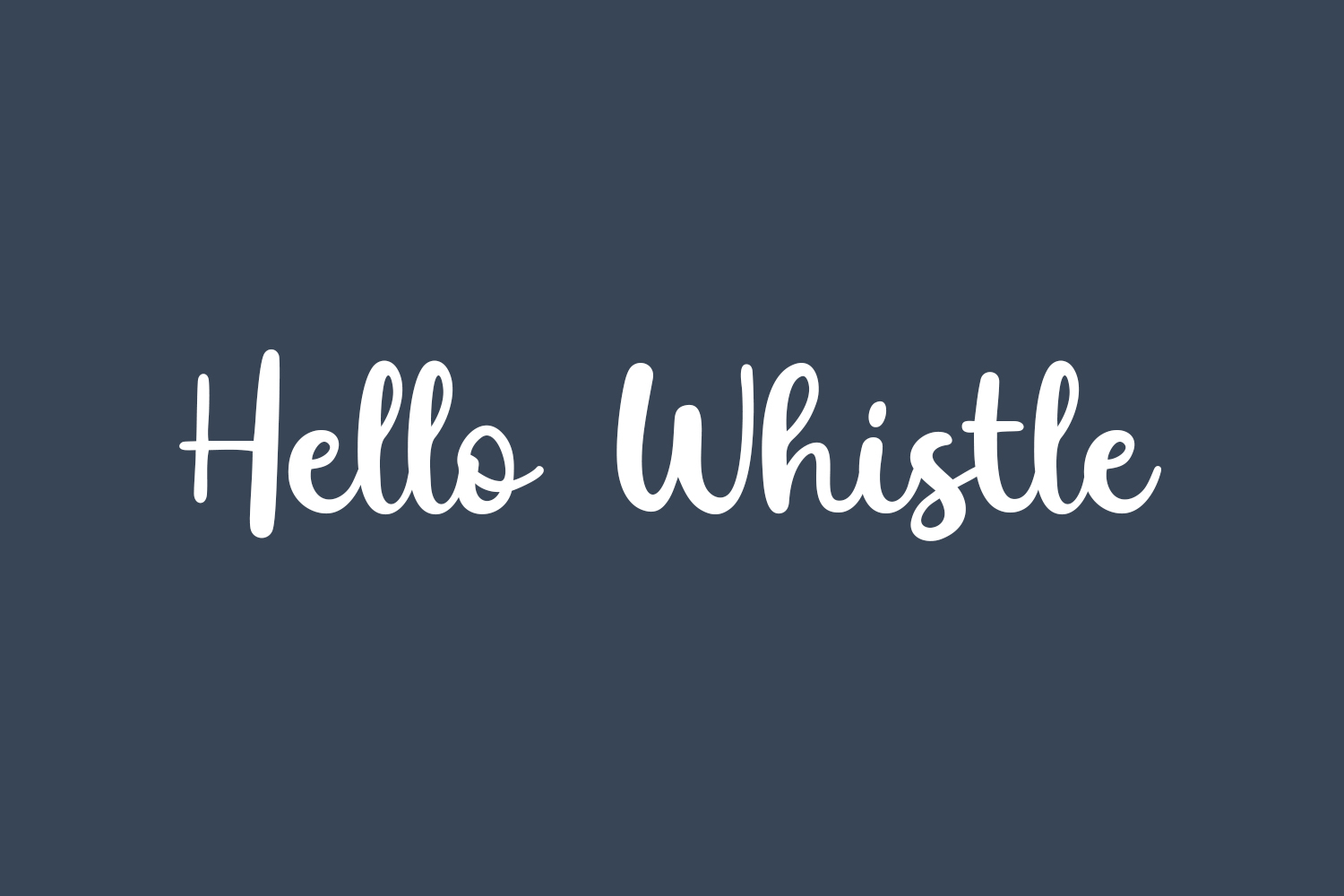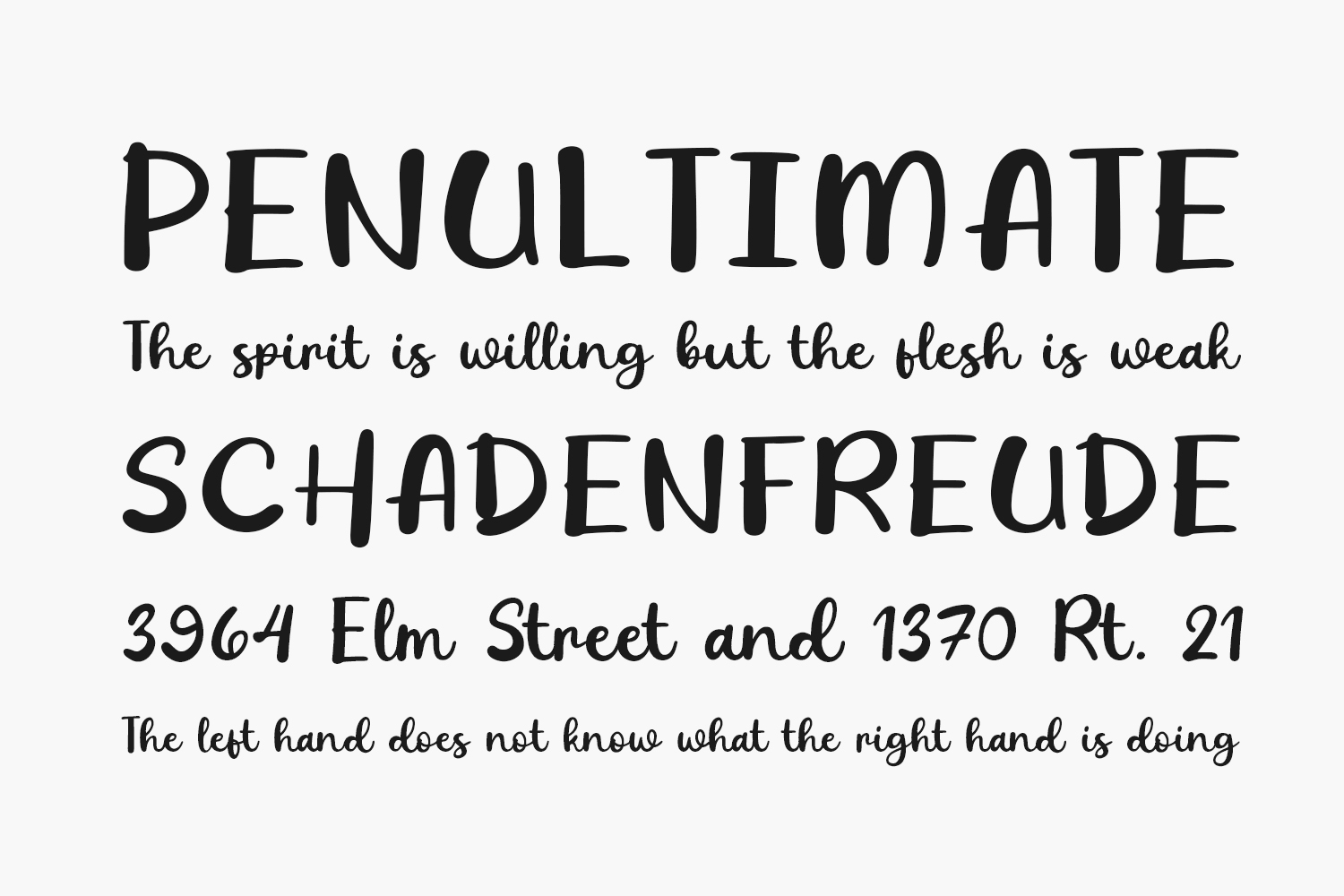
Discover Hello Whistle Free Font, a charming and contemporary script font ideal for posters, logos, magazines, book covers, banners, and beyond! Unlock the potential of this delightful font to craft captivating designs. Versatile and adaptable, Hello Whistle seamlessly enhances a wide range of projects, infusing them with a distinctive allure that sets them apart. Download the font for free if you need it for personal use or purchase the full version for commercial use.